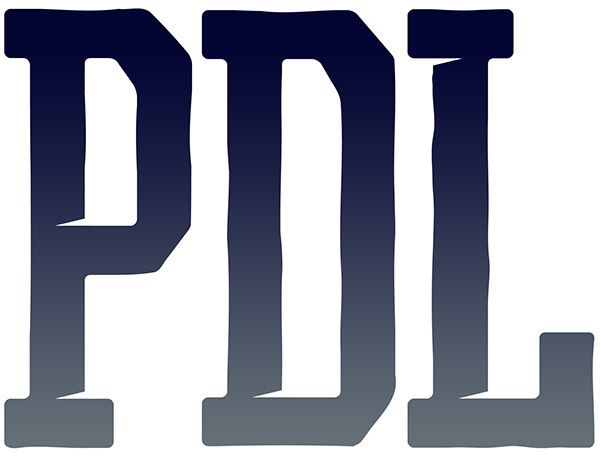
Promesh Two Font
PROMESH TWO – A Free Athletic Font
PROMESH TWO adds two new styles to the popular font PROMESH here on Behance. Both styles available free for personal and commercial use. All images and logos used in the presentation of PROMESH TWO are the property of their owners. Enjoy!